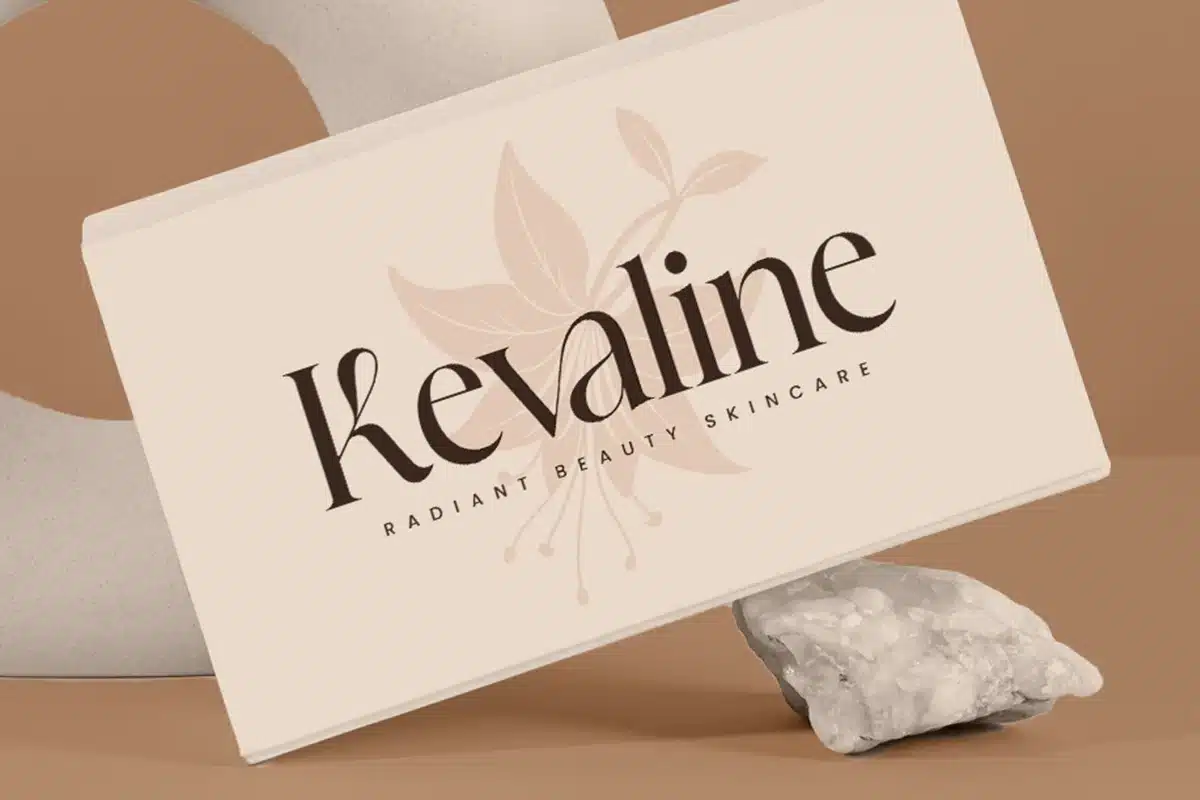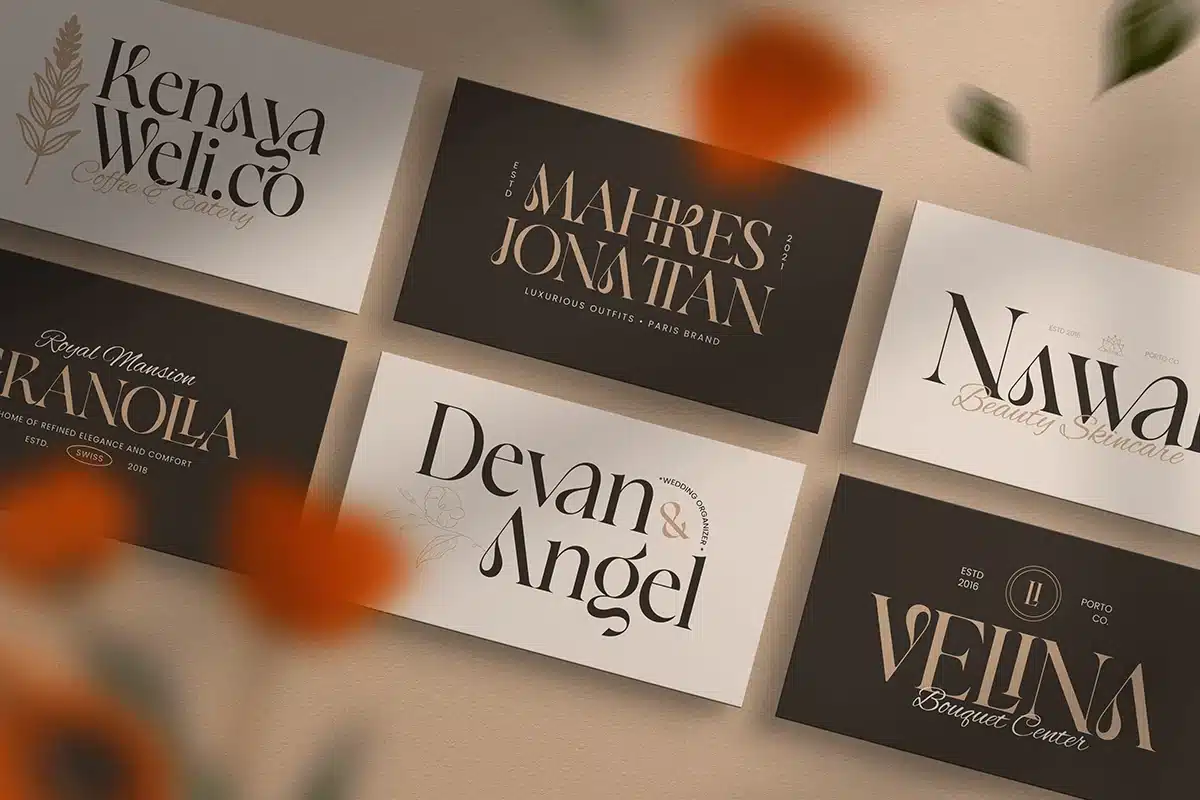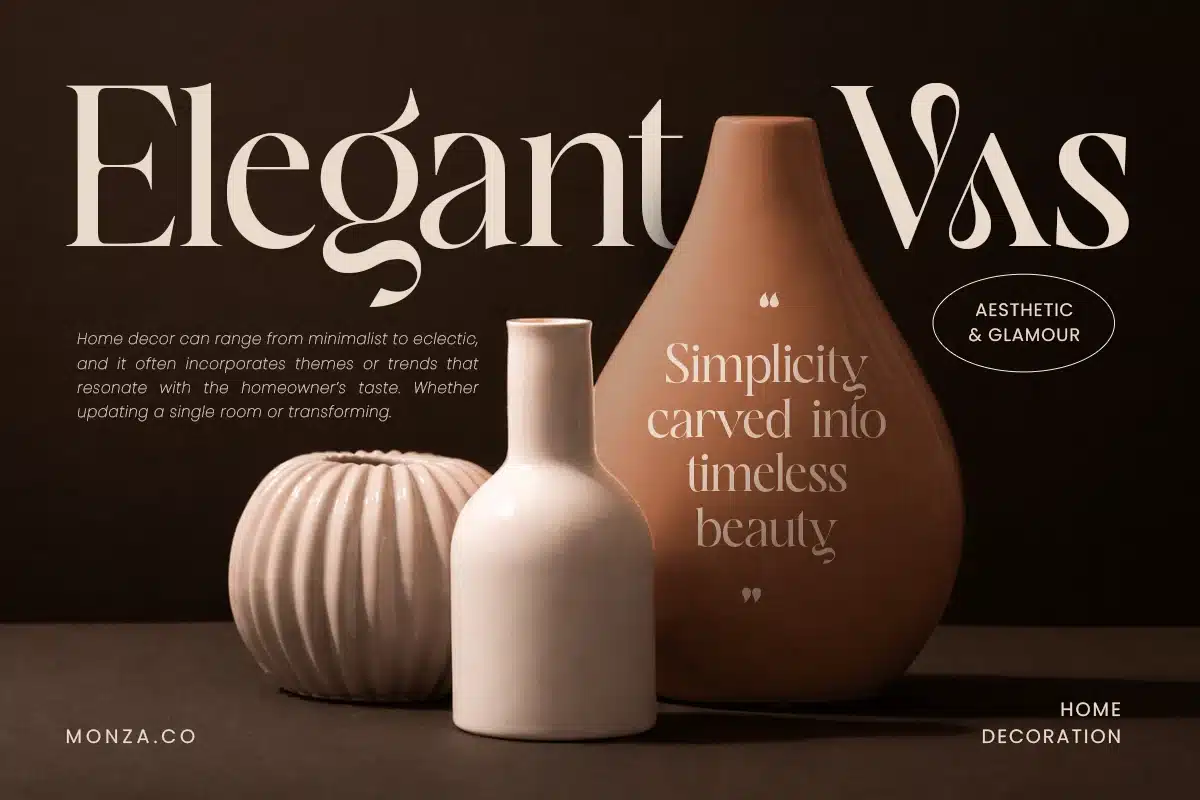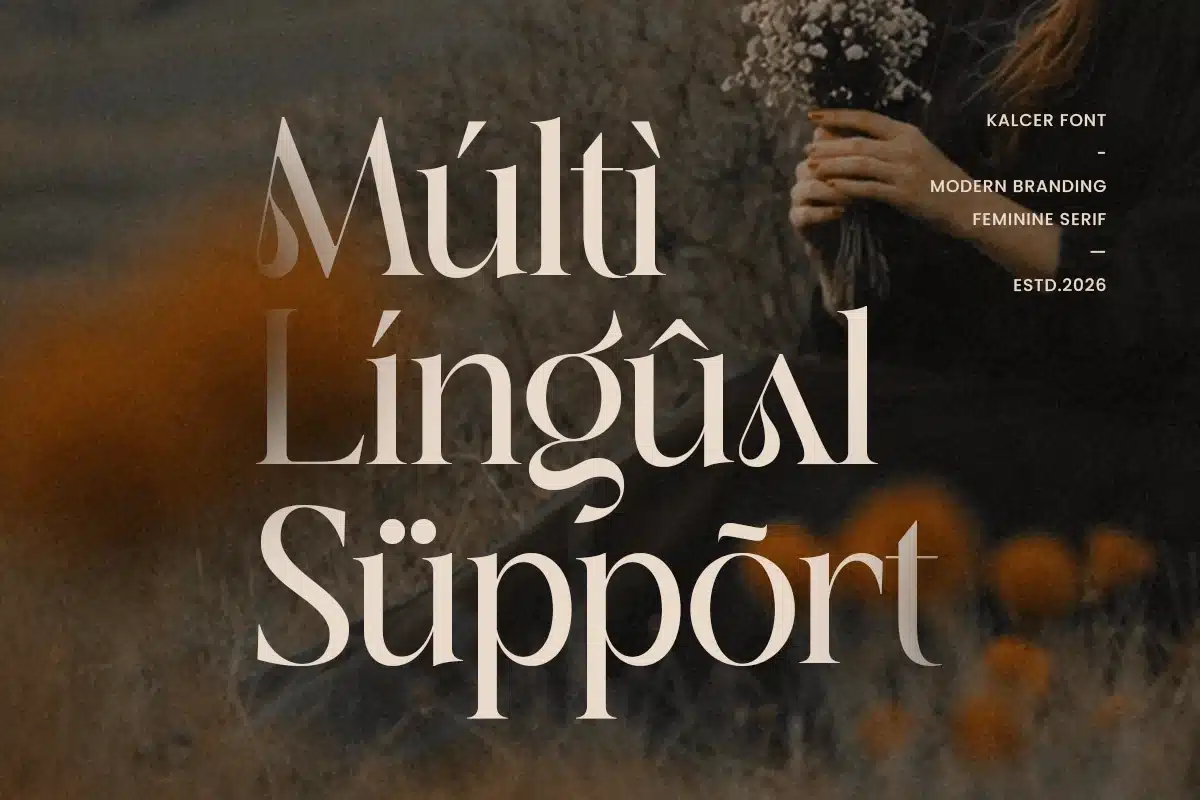
Kalcer – Modern Branding Feminine Serif Font
KALCER is a modern branding feminine serif font designed to bring softness, elegance, and refined confidence to your typography. With graceful serif details, balanced proportions, and a polished modern rhythm, this typeface creates a premium visual tone that feels stylish, delicate and instantly brand-ready.
Built for feminine-focused branding, KALCER works beautifully across logos, wordmarks, beauty packaging, website headers, editorial layouts, invitations, labels, social media graphics, presentations, and upscale marketing visuals. Its elegant serif structure keeps every composition clean and readable while adding a warm, luxurious personality across both digital and print design.
Whether you’re building a beauty brand, creating boutique packaging, designing romantic stationery, or crafting a fashion-forward editorial concept, KALCER provides a feminine serif foundation that makes your typography feel sophisticated, graceful, and unforgettable.
Inspiration Behind KALCER
KALCER is inspired by contemporary feminine branding and modern editorial typography—where softness, clarity, and elegant structure define premium communication. The design focuses on refined serif rhythm and graceful balance to support beauty, boutique, and lifestyle identities with a stylish, modern presence.
KALCER Font Features:
- Modern feminine serif letterforms with elegant premium character
- Perfect for branding, logos, editorials, and beauty packaging
- Clean structure for refined layouts and strong readability
- OpenType features for polished professional typesetting
- Feminine logos, wordmarks, and premium brand identity systems
- Beauty, skincare, fragrance, and boutique branding
- Editorial layouts, magazine covers, lookbooks, and headlines
- Packaging, labels, invitations, and elegant stationery
- Social media campaigns, websites, presentations, and marketing assets
Add graceful elegance to your branding with KALCER—a modern feminine serif font made for refined premium identity design. ✨